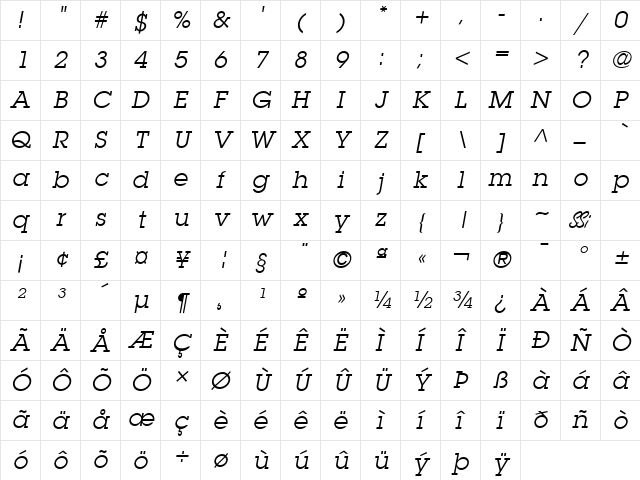
Torrent Graphic SSi Italic
Design Context for Torrent Graphic SSi
Torrent Graphic SSi is a composed and adaptable typeface that performs quietly and consistently across a wide range of design contexts. The slanted form adds forward momentum and visual energy.
Pro Tip: Use Torrent Graphic SSi for emphasis, pull quotes, and subheadings where its slanted energy can add rhythm to the layout.